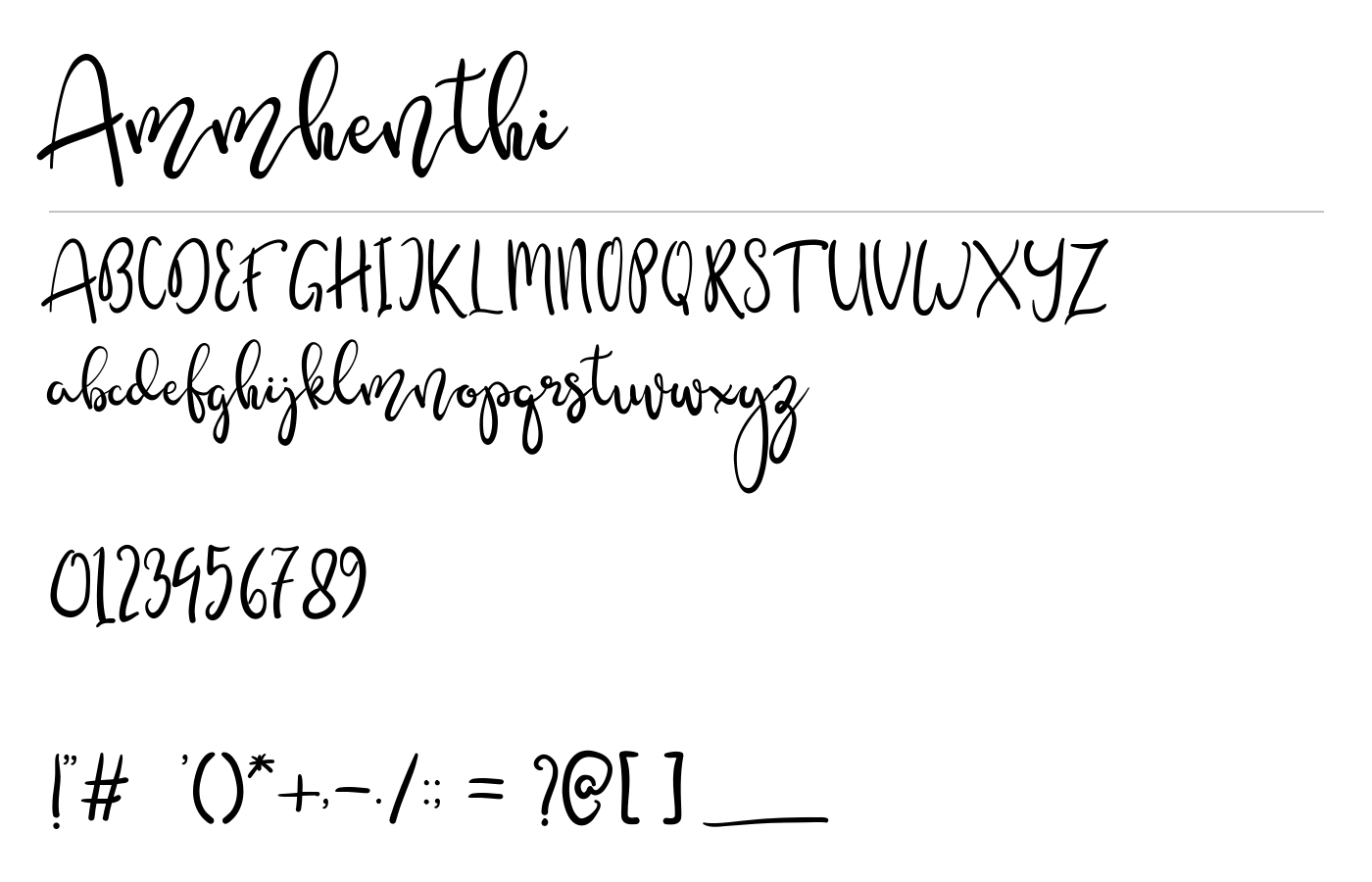
Ammhenthi is a playful and elegant handwritten script font with a casual, flowing style that feels personal and inviting. Its tall, narrow letterforms feature smooth, slightly varied strokes that give it a natural, hand-drawn charm, making it ideal for creative designs, invitations, greeting cards, and branding that seeks a warm, friendly touch. This font works best in headlines and display use where its unique character and legibility can truly stand out.
Ammhenthi Font
About Ammhenthi Font